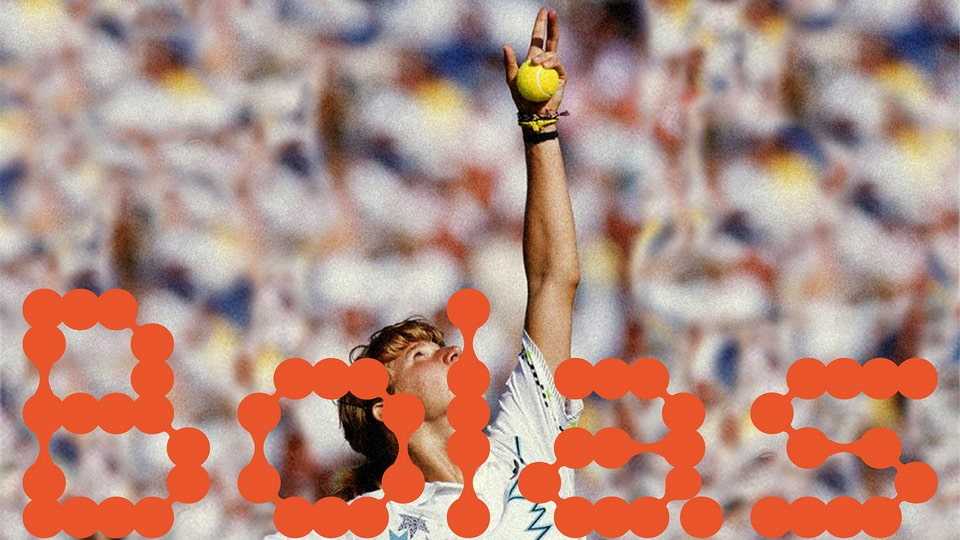
Download Bolas font, a captivating display typeface with Regular and Bold weight options. Bolas combines circles and curvilinear connections in three distinct modules, resulting in a unique and impactful design.
Designer: Maria Figas